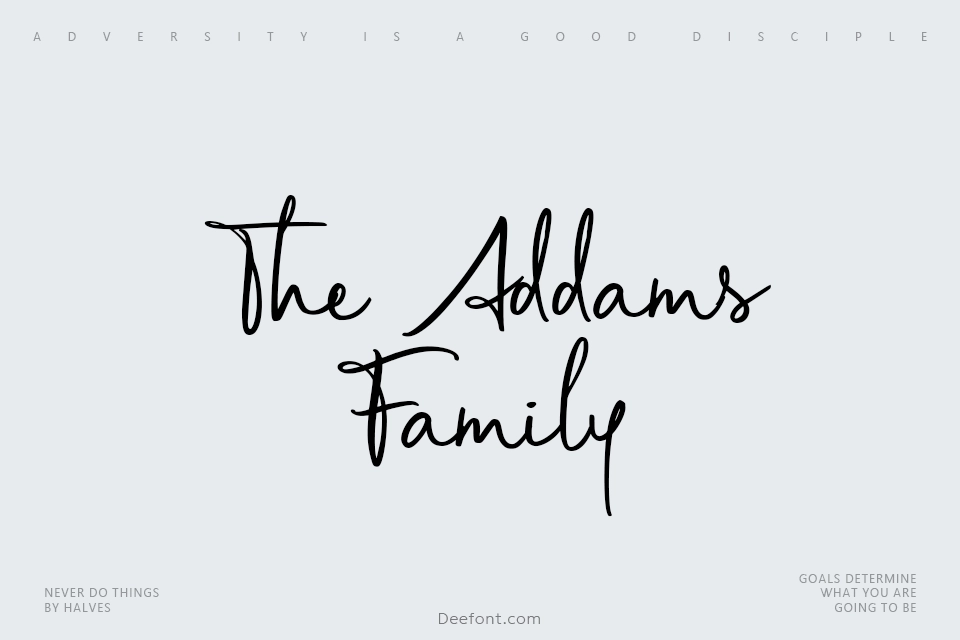
The Addams Family Font
The Addams Family is a handwritten script font crafted by Cat.B that exudes individuality and charm through its fluid strokes and elegant flourishes. With a personal touch that mimics the warmth of an intimate note, this whimsical typeface combines casual sophistication and maintains excellent readability. Ideal for invitations, greeting cards, branding projects, and creative applications seeking a unique and personal aesthetic that injects personality into design work effortlessly.